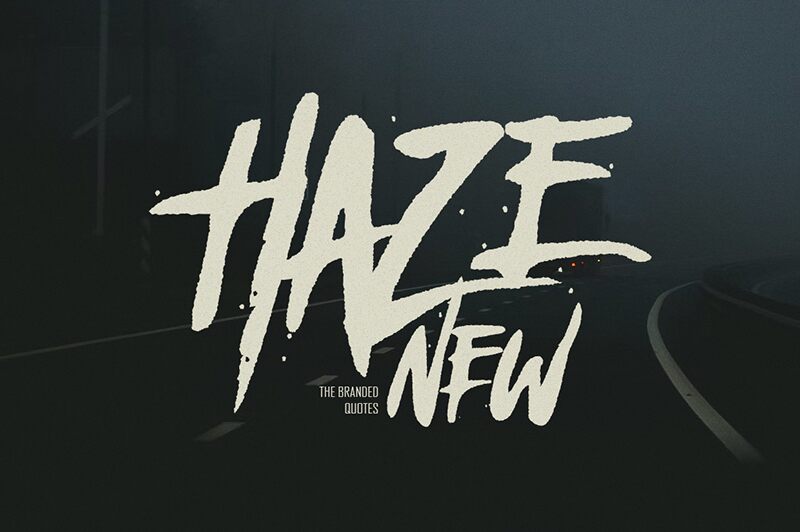
Haze New font
Haze New
About this font:
Introducing our best-selling thriller font HAZE! This font is recognized as the most thought-provoking gestural typeface in its category. We meticulously rebuilt all its glyphs while preserving its surreal arrangement and added a clean version. Haze has become a defining look for psychological horror and modern aesthetics, featured in productions like A24's Green Room and used by pop-punk bands such as Between You and Me.
What's New:
- All glyphs have been made solid.
- Splatters have been reduced for a cleaner appearance.
- Some glyphs have been retouched for better visual alignment.
- Surreal spacing and alignment have been maintained.
- A clean-up version has been added for improved clarity.
- Multilingual characters are now included.
- Missing punctuation marks have been added.
- Swashes have been maintained for stylistic flair.